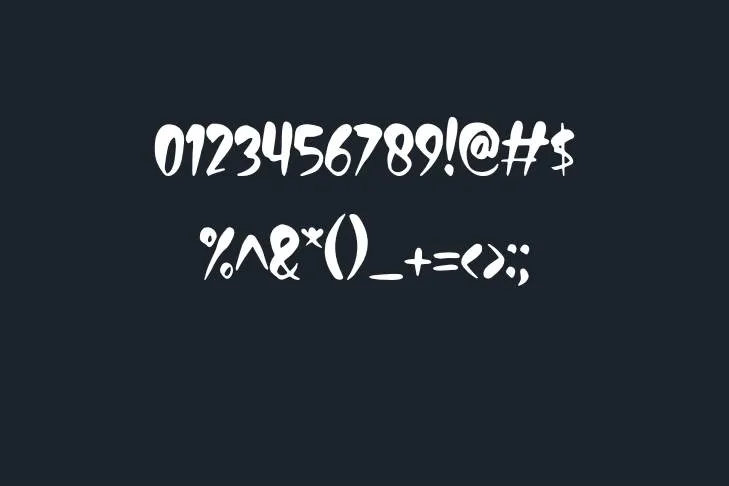
In today’s article, I’ll let you know about the Creepy Face font which is perfect to create titles for horror or suspense movies as it adds a dramatic touch to the titles. Creepy Face Font is a unique and attractive font which is purposefully designed by Jonathan S. Harris in 1993, and this peculiar typeface gained maximum popularity due to its different aesthetics which are based on Grotesque and spooky imagery.
This typeface belongs to the Grotesque Display typeface family and it is considered an ideal typeface for creating Halloween graphics, spooky posters, flyers, and other designed projects.
This splendid typeface is comprised of tall extended letters with eerie symbols and images such as bats, skulls, ghosts, and other mysterious creatures. This font is available in both Regular and Bold styles and it can be utilized to construct several visual effects.
It is comprised of uneven glyphs and tangled symbols which provide an exclusive aura to this typeface, unlike any other typeface. Despite its stimulating and particular design, the font is still legible and coherent and this feature is impeccable for projects which require both, creativity and readability. Enhance the aesthetic appeal and precision of your design by pairing the typeface style with other fonts, such as the sabon font available on our website.
How to Use Creepy Face Font in Your Designs?
The most impactful feature of this typeface is its adaptability so, it can be used to design several projects like posters, logos, social media posts, invitation cards, and much more. This font is quite suitable to create eye-catching and visually interesting typography.
In addition to these, it can also be optimized to add a touch of dismay and mystery to any project. Creepy Face is a type of font that combines creativity, readability, and an atmosphere of horror and thrill. Thus, it is awesome for designers seeking to establish a project that displays a horror and eerie effect.
Creepy Face Font Pairing
Characters of Creepy Face Font
Name | Creepy Face Font |
Style | Fancy |
Designer | Jonathan S. Harris |
Who is the creator of the Creepy Face font?
It is a unique and attractive font which is purposefully designed by Jonathan S. Harris in 1993, and this peculiar typeface gained maximum popularity due to its different aesthetics which are based on Grotesque and spooky imagery.